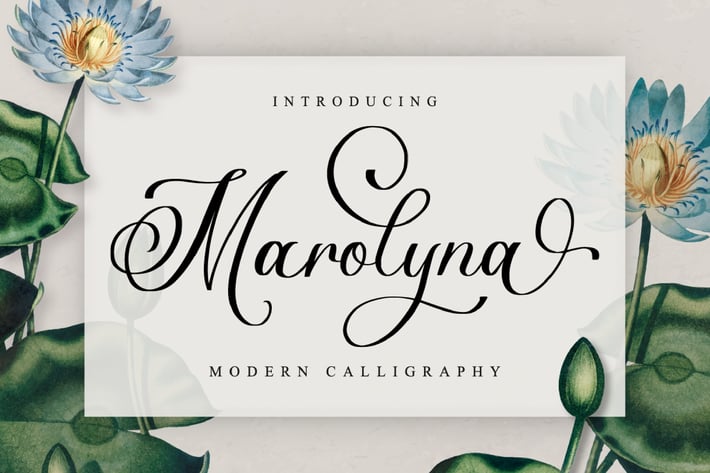
Marolyna - Calligraphy Font
Marolyna is an exquisite handwritten font, masterfully designed to become a true favorite. It maintains its classy calligraphic influences while feeling contemporary and fresh.
Modern Handwritten Font
Beautiful Swash (Ending tail)
Beautiful Titling (Beginning tail)
Special Ligatures